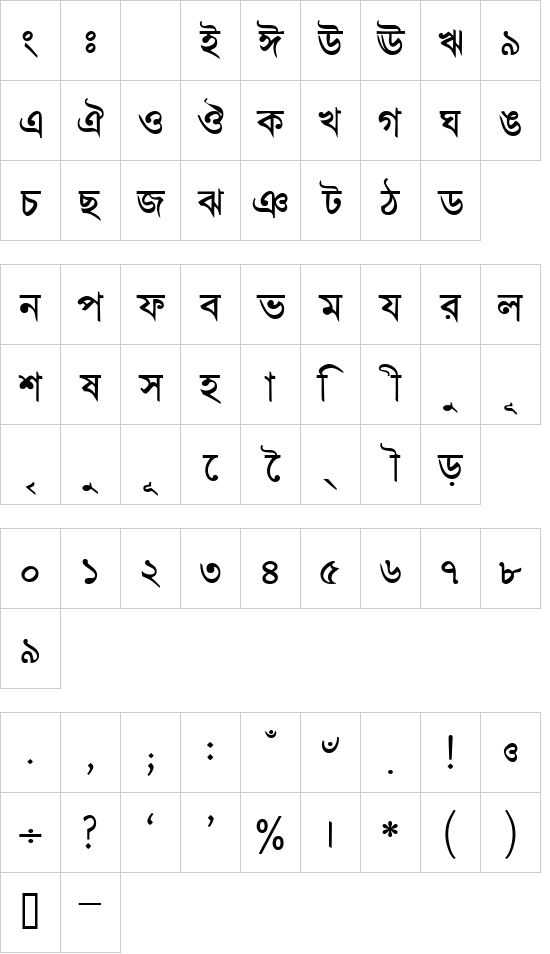
BengaliDhakaSSK
About BengaliDhakaSSK
BengaliDhakaSSK is a calligraphic face built for traditional Bengali script, with smooth, authentic letterforms. The characters follow the connected, curving structure of classic Bengali writing, with the distinctive horizontal headline and rounded shapes that give text a genuine, well-balanced readability true to the script's long handwritten tradition.
It suits cultural branding, festival posters, literary layouts, and genuine Bengali-language designs that call for an authentic hand. BengaliDhakaSSK is free to download as a TrueType file, and you can preview it with your own text to see how the smooth Bengali characters read in your layout.